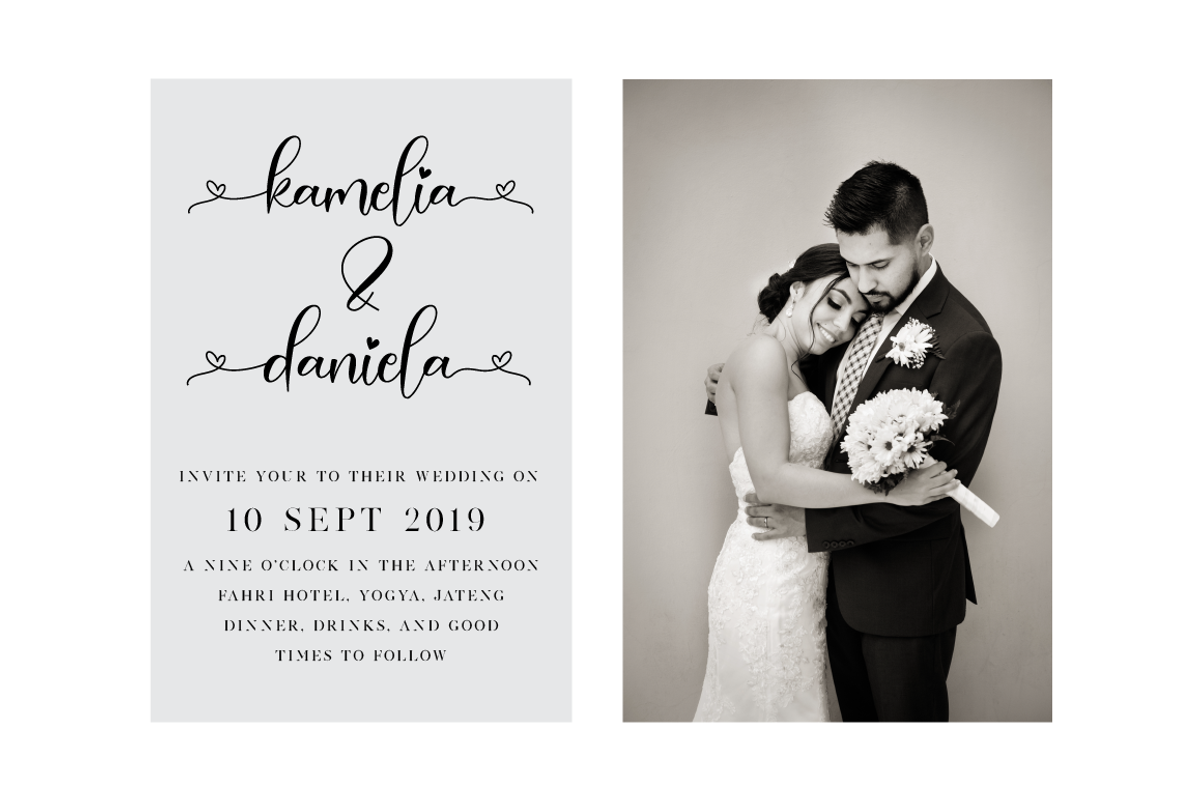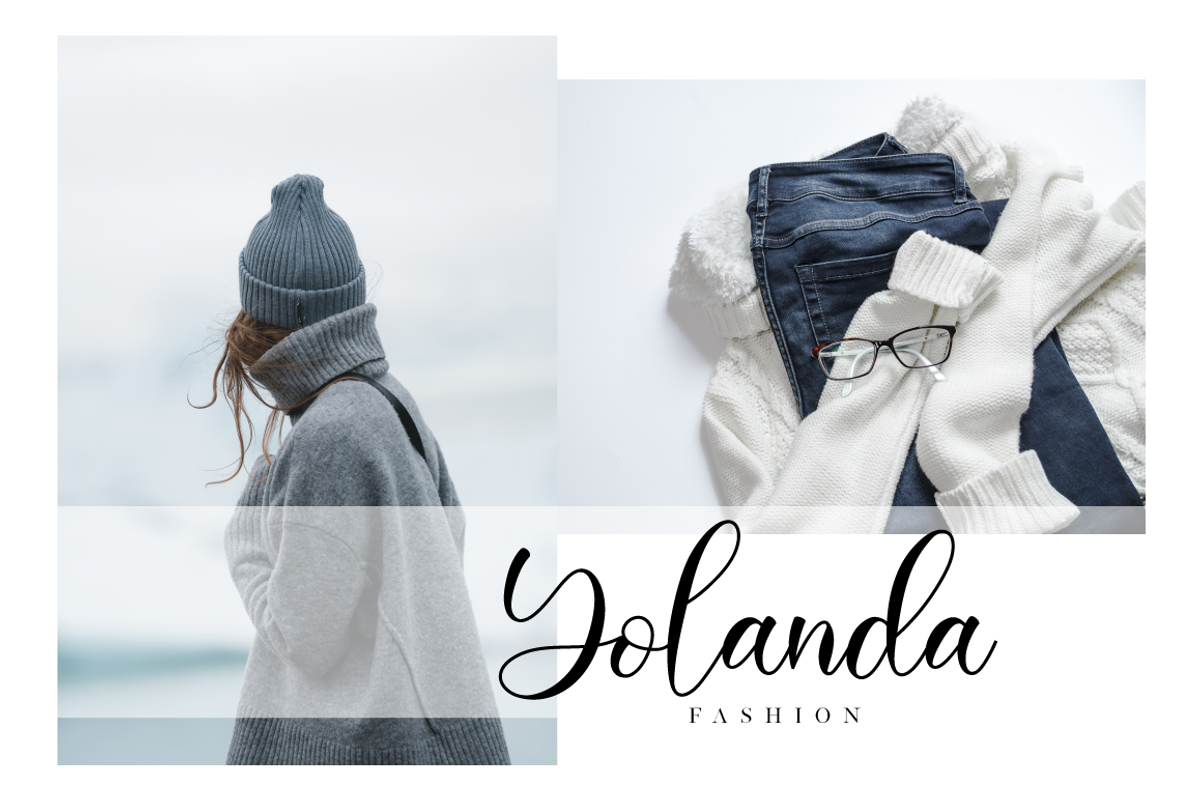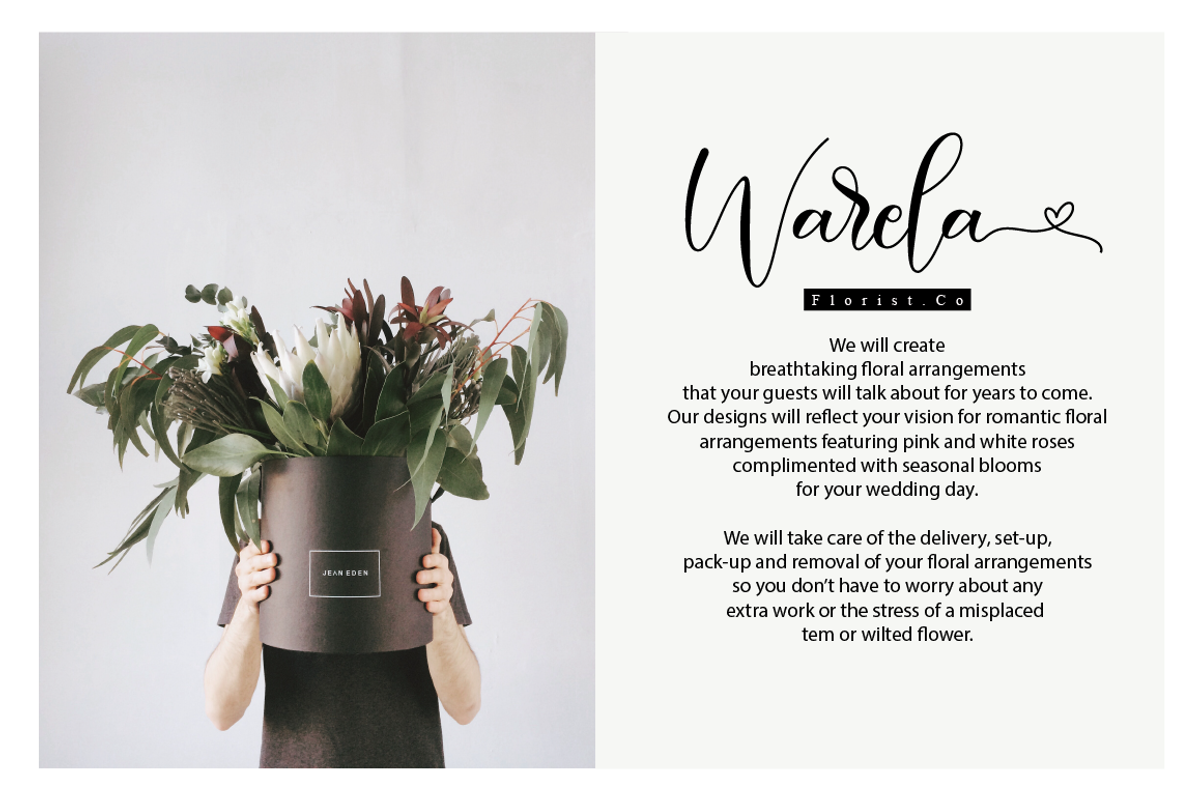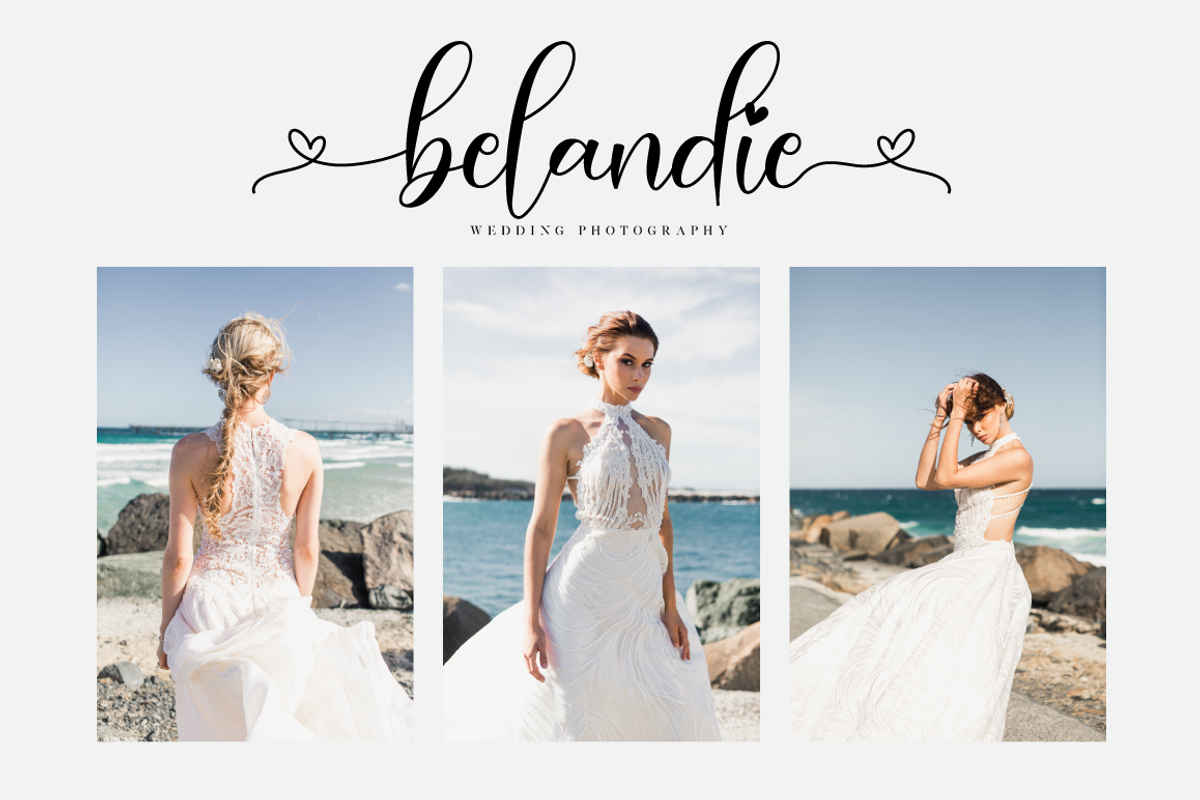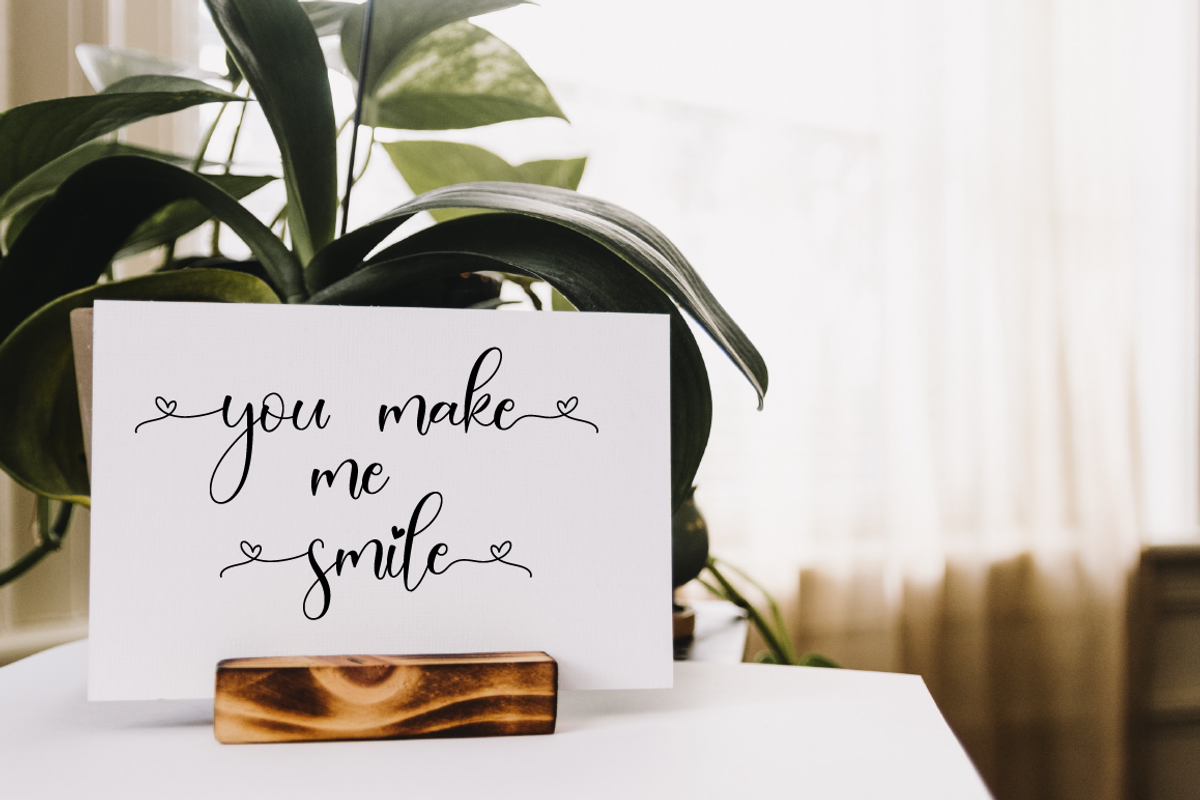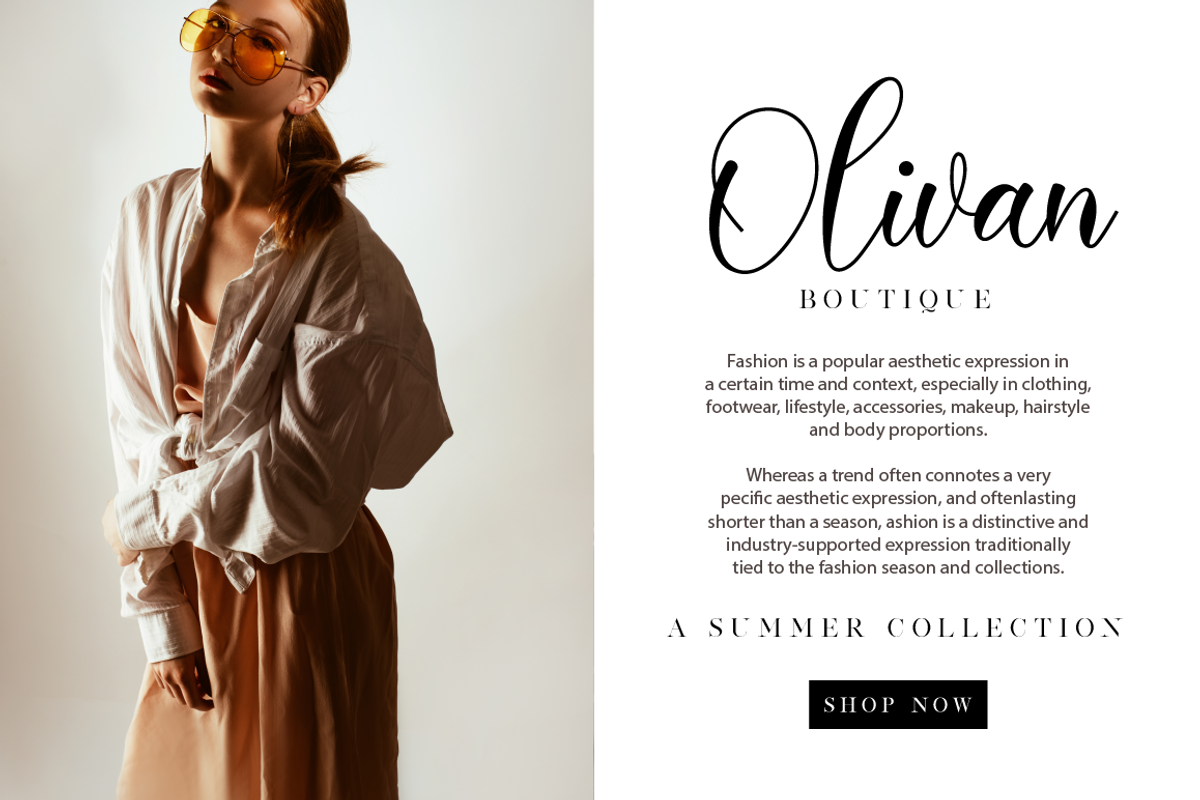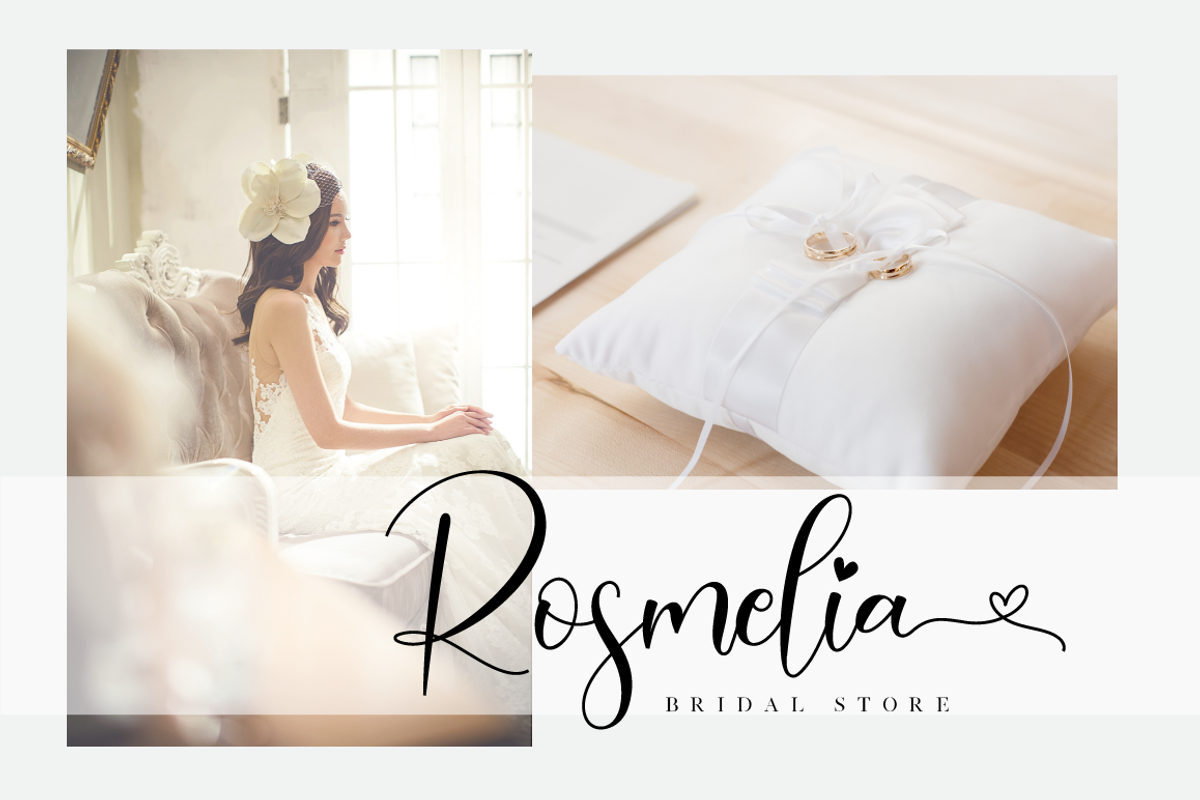
Paisley // Lovely Script Font
The Paisley is a beautiful script font. It has a classy, elegant, and modern look which can be used for logos, branding, invitations, stationary, wedding designs, social media posts, and every other design which needs a handwritten touch.
- Modern Handwritten Font
- Beautiful Swash (Ending tail)
- Beautiful Titling (Beginning tail)
- Special Ligatures